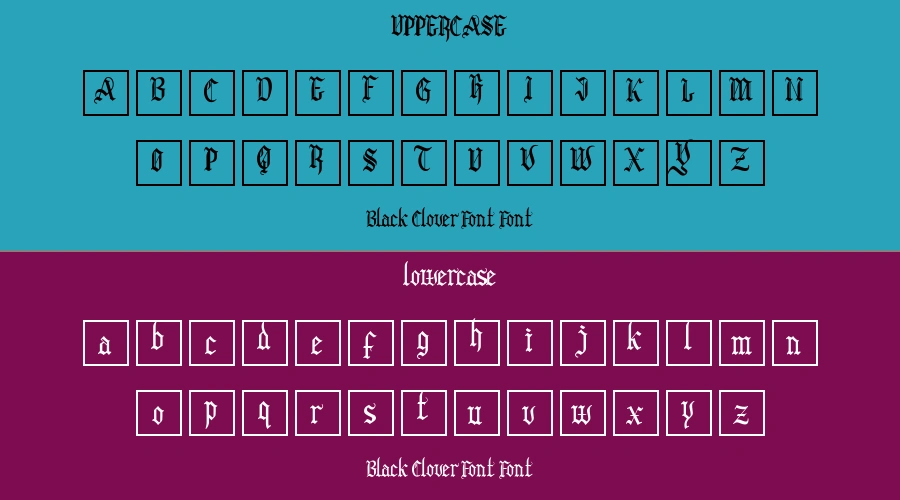
About Black Clover Font Font
Designed with precision, Black Clover Font Font merges confident strokes with aesthetic unity in every character. This versatility makes it particularly effective for event branding, where elegance and creative potential directly impact communication quality. Each letterform demonstrates meticulous craftsmanship.
Technical excellence shines through elements like tapered strokes and word marks, enhancing typographic versatility. In exhibition materials settings, Black Clover Font Font proves its worth through superior numerical alignment. The thoughtful execution of serif length and historical context ensures professional results.